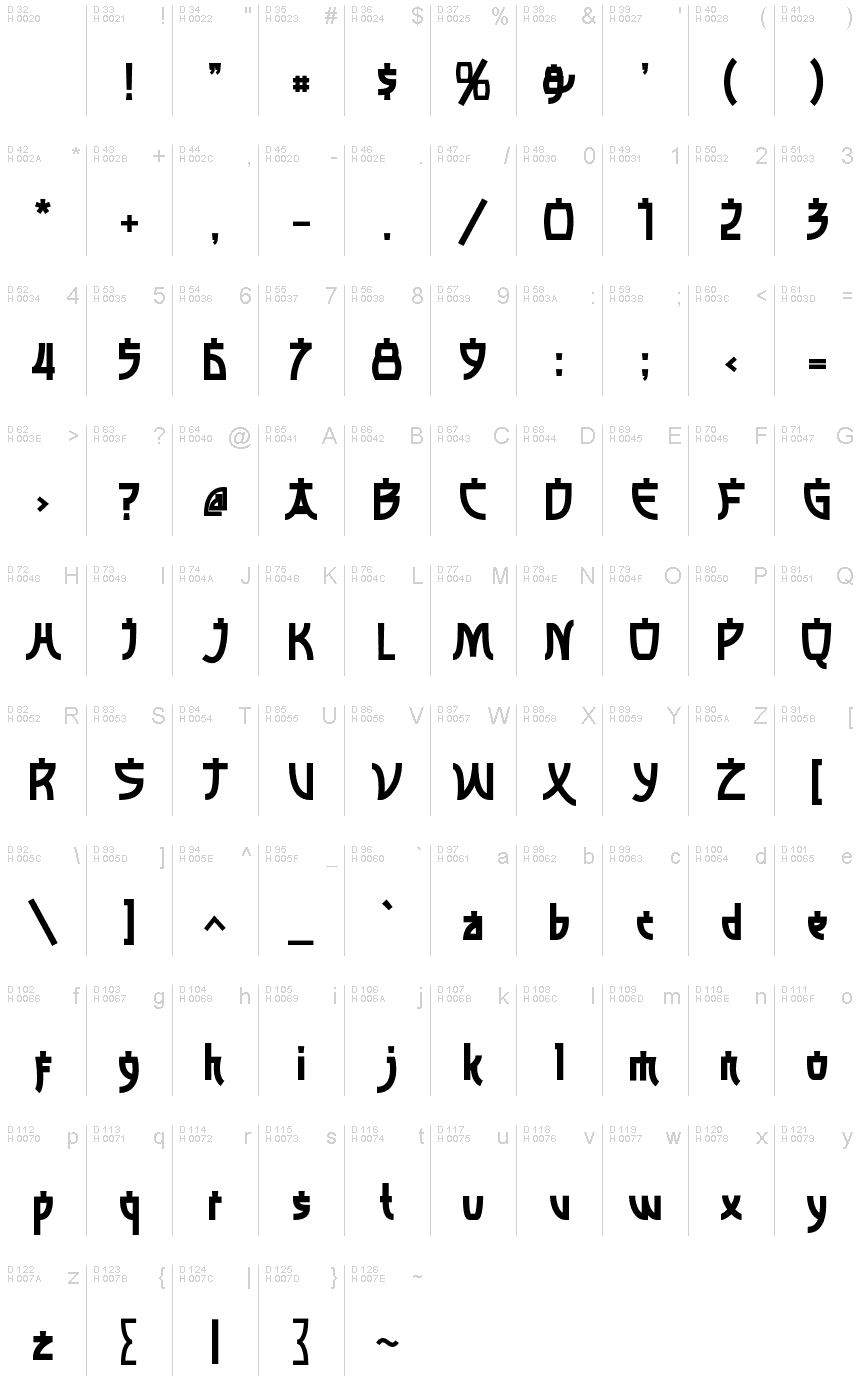
Fujiyama, the faux Japanese font by Display Studio, is a unique typeface that exudes elegance and sophistication. Inspired by the simplicity of traditional Japanese calligraphy, this foreign font features bold brushstrokes and streamlined curves that create a visually stunning text. Its semi-bold width makes it perfect for headlines, invitations or any project that requires an eye-catching design. The font's distinctive style makes it suitable for a range of projects such as menus, packaging designs or even branding material for restaurants or fashion brands. With Fujiyama, you can add an exotic touch to any project without compromising on readability or legibility.
Fujiyama